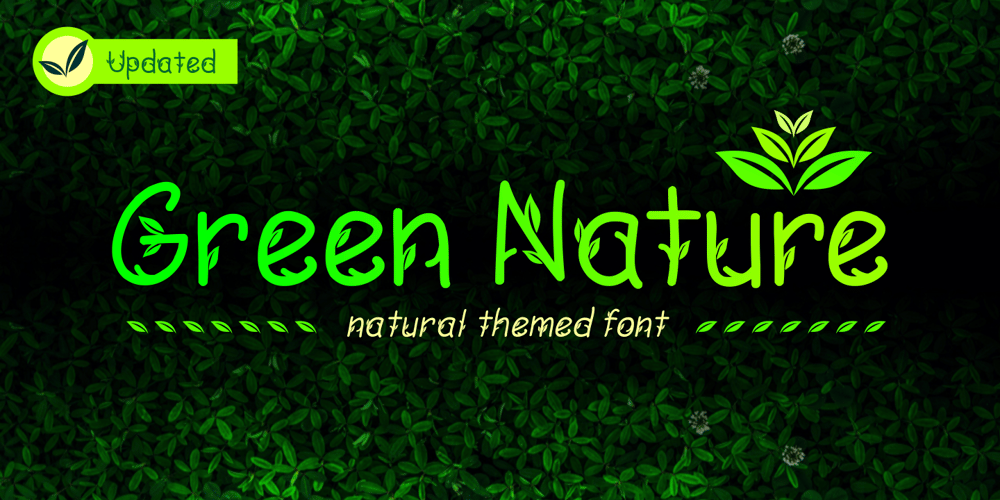
Green Nature Font Family was designed by Ahmad Zulfikar Ali and published by ZetDesign. Green Nature contains 2 styles and family package options. We’re introducing our new product that we named Green Nature….. this font is inspired by leaves, so it gives a beautiful and natural impression. This font is very suitable for clothing, logos, magazines, banners, etc. With natural touch, this font is the best choice for your natural business. Files included: green nature.otf